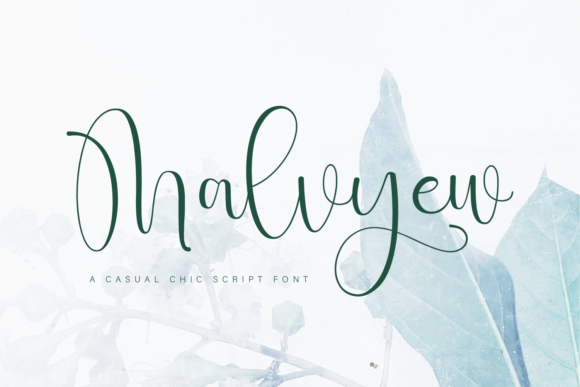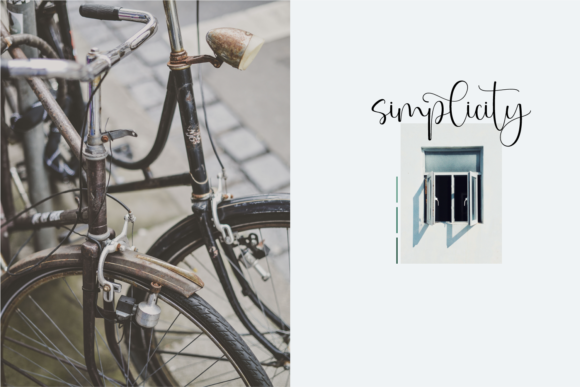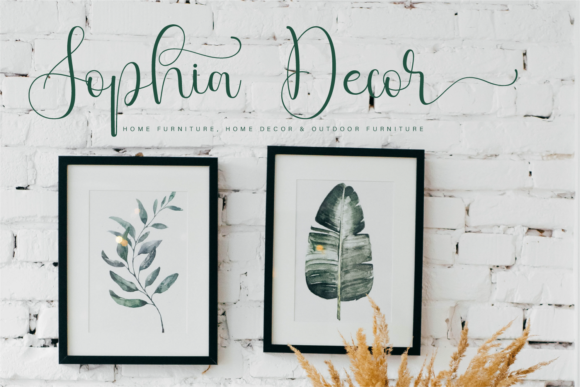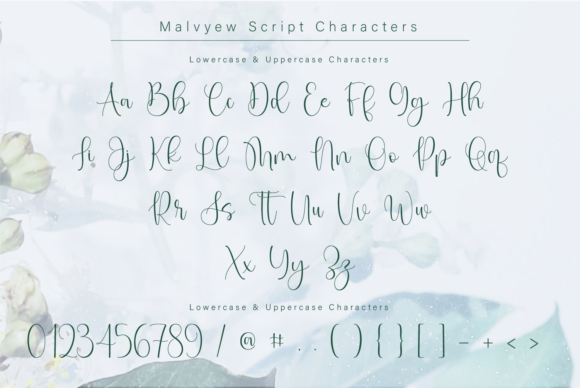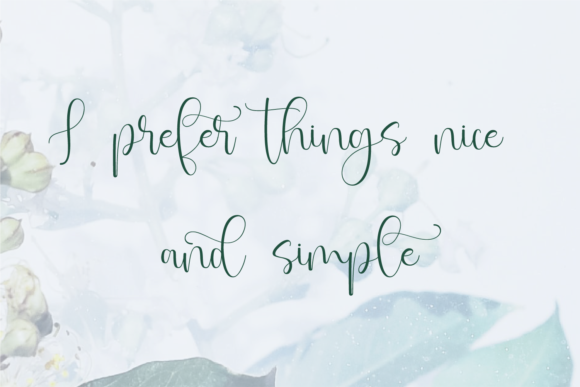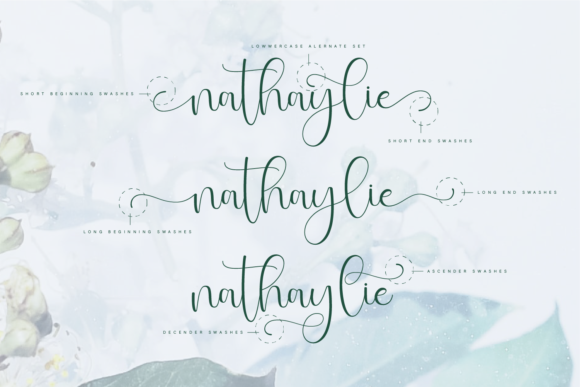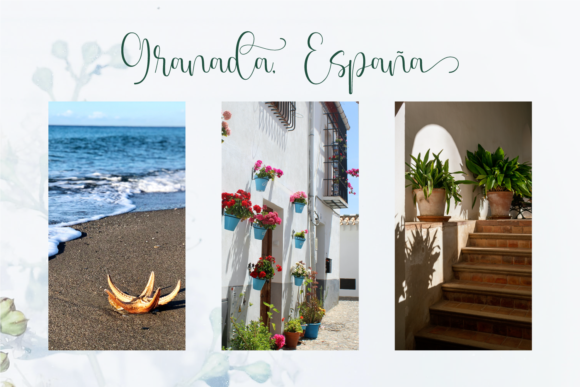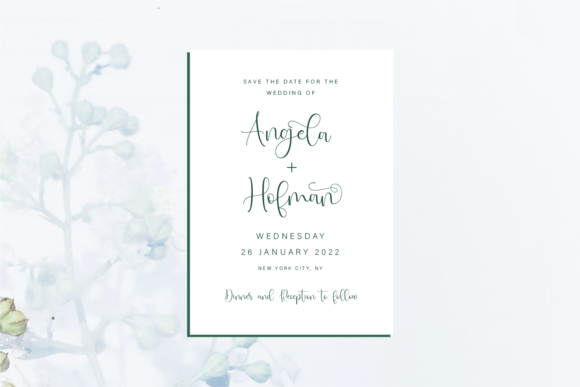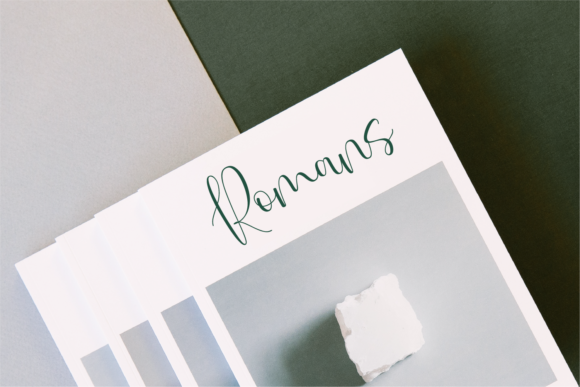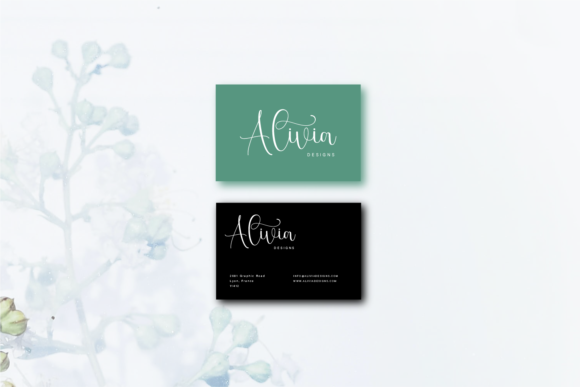
Malvyew Font
About Malvyew Font
Malvyew is a font that exudes elegance and contemporary charm in its script style. With its impeccable form, inspired by timeless classic calligraphy, this font adds a touch of sophistication to your projects, enhancing their beauty with its balanced and varied appearance.
The elegant script style of Malvyew brings a sense of grace and beauty to your creations. Each letter carries the smooth and artistic touch of calligraphy, making your work stand out with a touch of timeless elegance and allure.
With Malvyew as your creative tool, you have the freedom to explore various design ideas. Whether you’re working on projects that require a refined and sophisticated vibe, creating contemporary designs with a touch of charm, or seeking a font that perfectly complements your vision, Malvyew adapts effortlessly to bring a sense of versatility and flair to your work.
Embrace the elegant and contemporary atmosphere of Malvyew and witness how it transforms your creations into exquisite works of art. Its balanced and varied form adds a touch of authenticity, making your designs truly captivating and mesmerizing.
Discover the joy of creating with Malvyew as your trusted companion. Let its script appearance be the key to unlocking your creativity and infusing your work with a sense of timeless beauty and contemporary charm.
Whether you’re designing for personal projects or professional endeavors, Malvyew is the font that adds that extra touch of flair and sophistication to your creations. Embrace the elegance of Malvyew and notice how it enhances the appeal and impact of your designs, making them truly special and unforgettable.
Let Malvyew be the font that sparks your inspiration and brings a touch of contemporary charm to your designs. Experience the magic of Malvyew and witness how it elevates your creative projects, making them truly beautiful and filled with a sense of timeless style and allure.